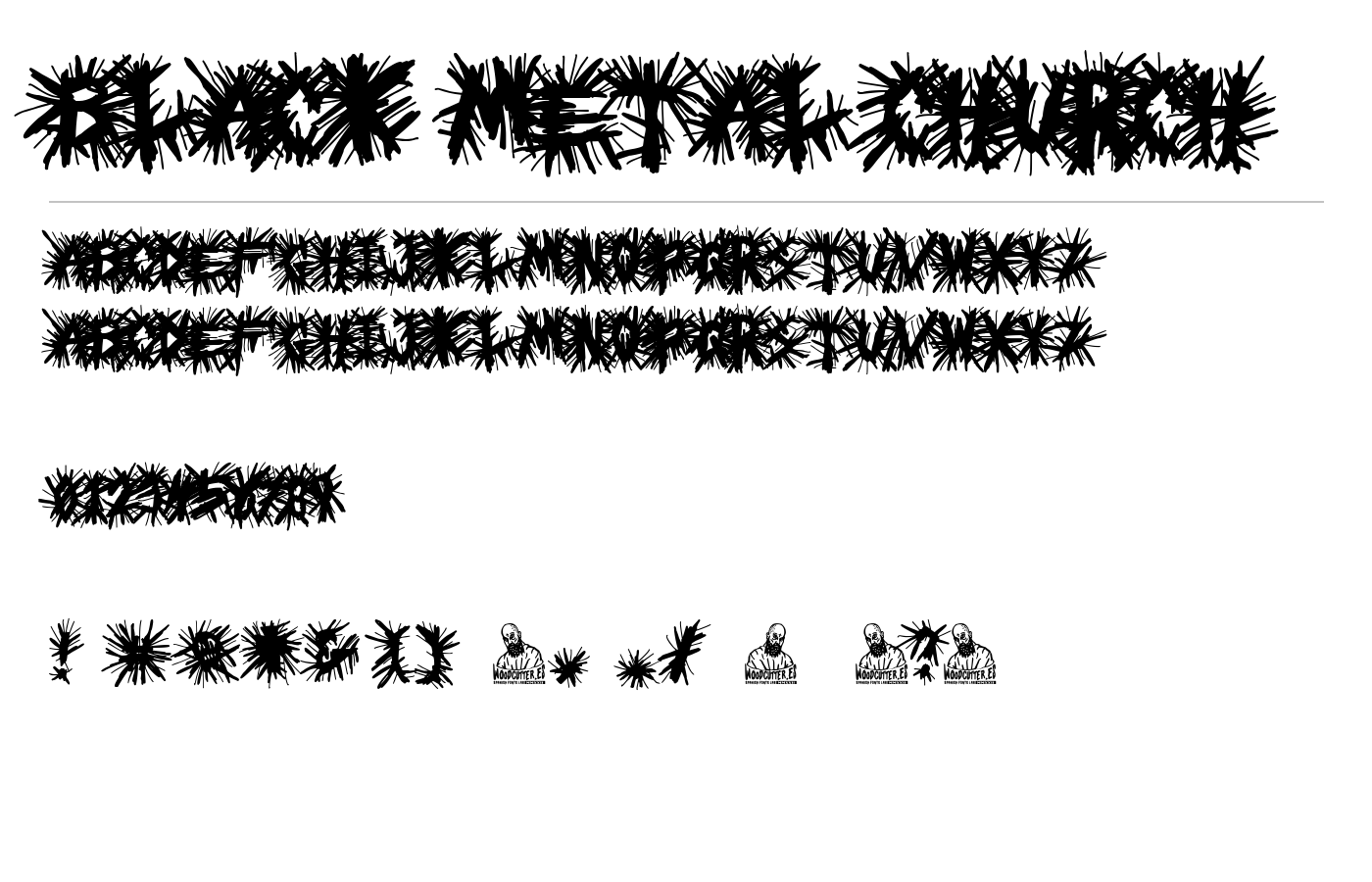
Black Metal Church is a bold, decorative display font characterized by its chaotic, spiky strokes that create an intense, heavy metal aesthetic. Its compact, all-caps letterforms resemble tangled thorns or sharp branches, making it perfect for edgy, dark-themed designs such as band logos, album covers, or extreme sports branding where a fierce and rebellious vibe is desired. This font commands attention with its aggressive style, though it is best used sparingly for headlines or impactful graphics rather than body text.
Black Metal Church Font
About Black Metal Church Font